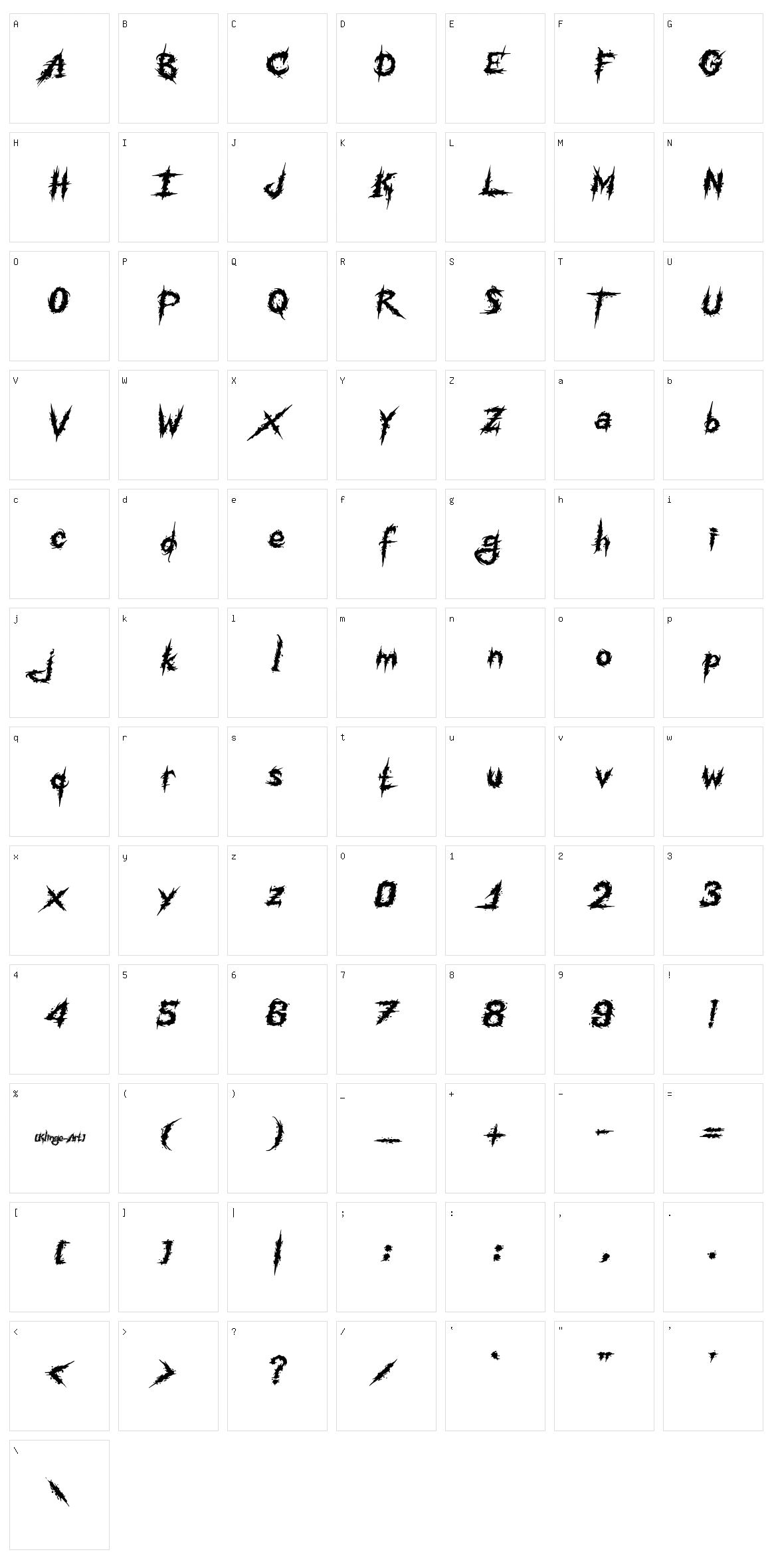
The free font Ink Noise is carefully designed by Klinge Art, showcasing a thoughtful balance of creativity and usability and falls under the Horror font style. When you download the ZIP file, it contains only 93.8 KB of font files, making it lightweight and quick to download. Please review the license details below to understand permitted usage and distribution rights. If license information is not available, we recommend using this font for personal projects only or contacting the author directly for commercial usage permissions.